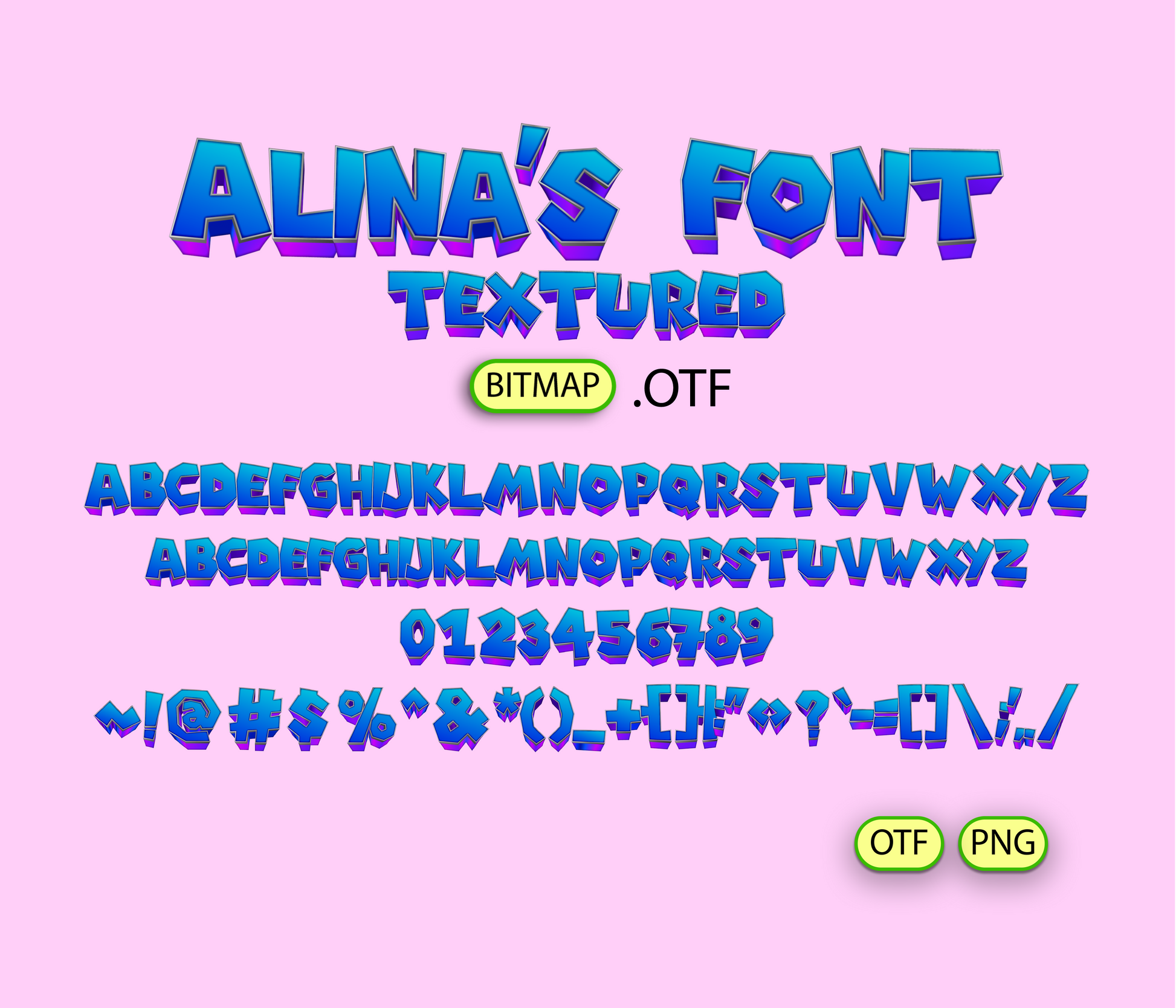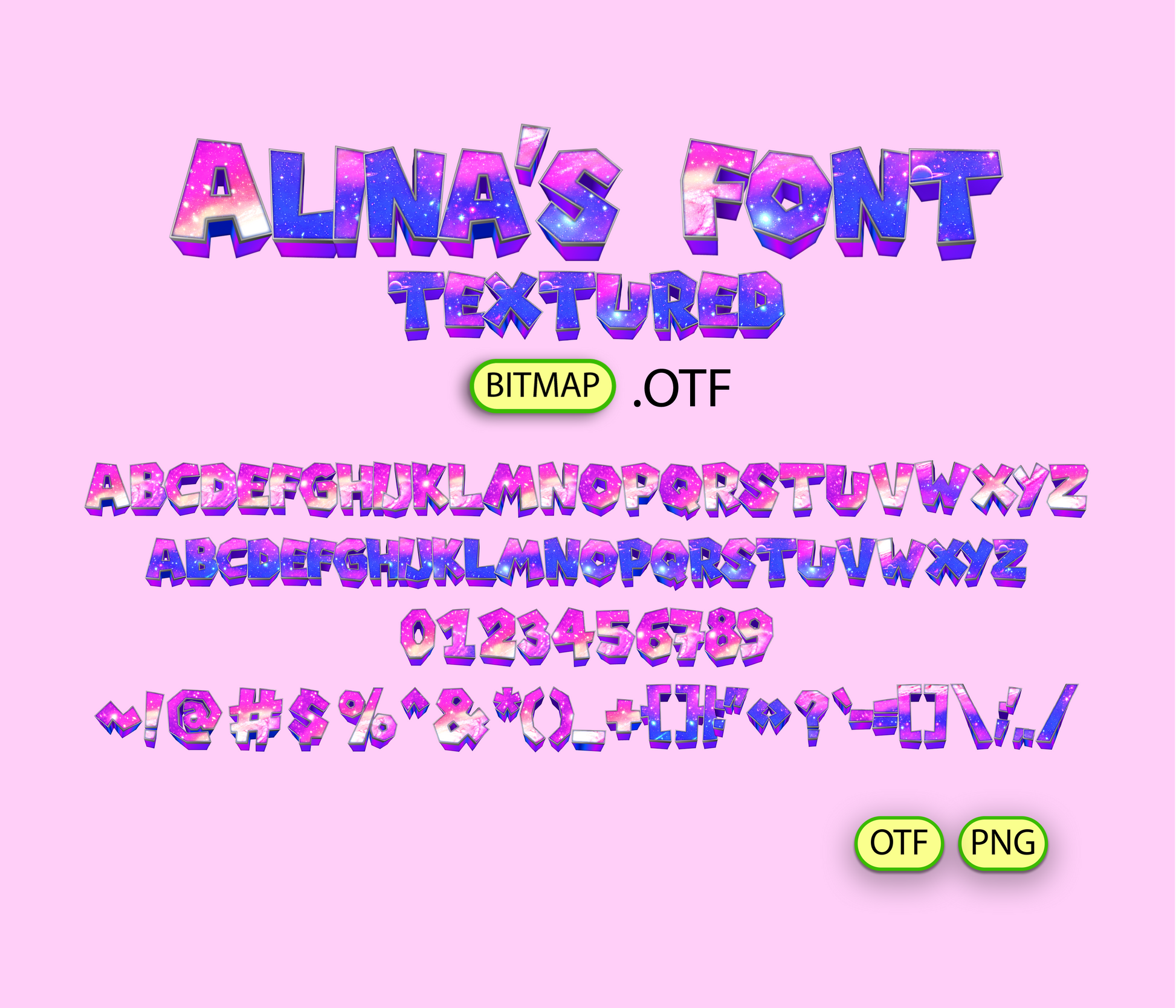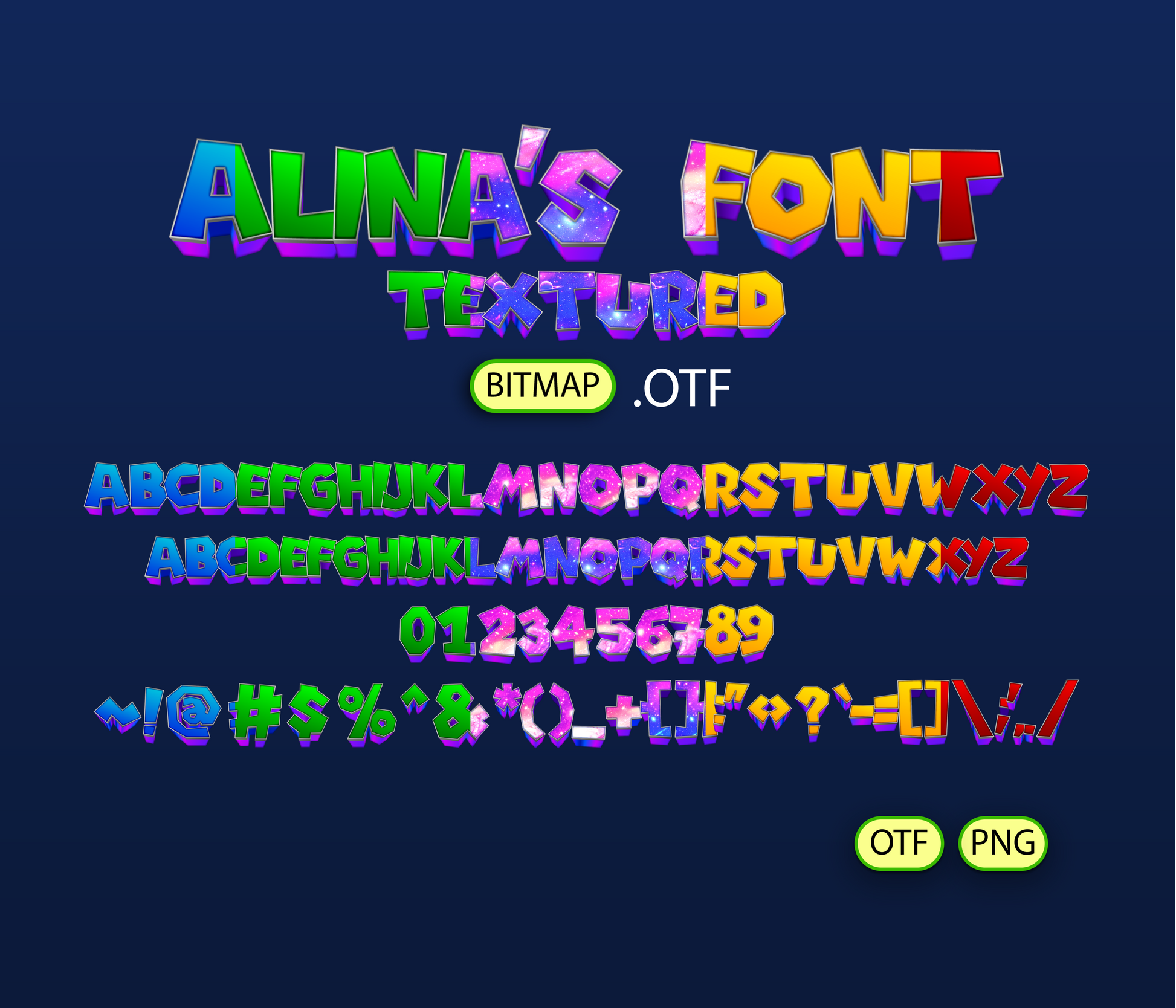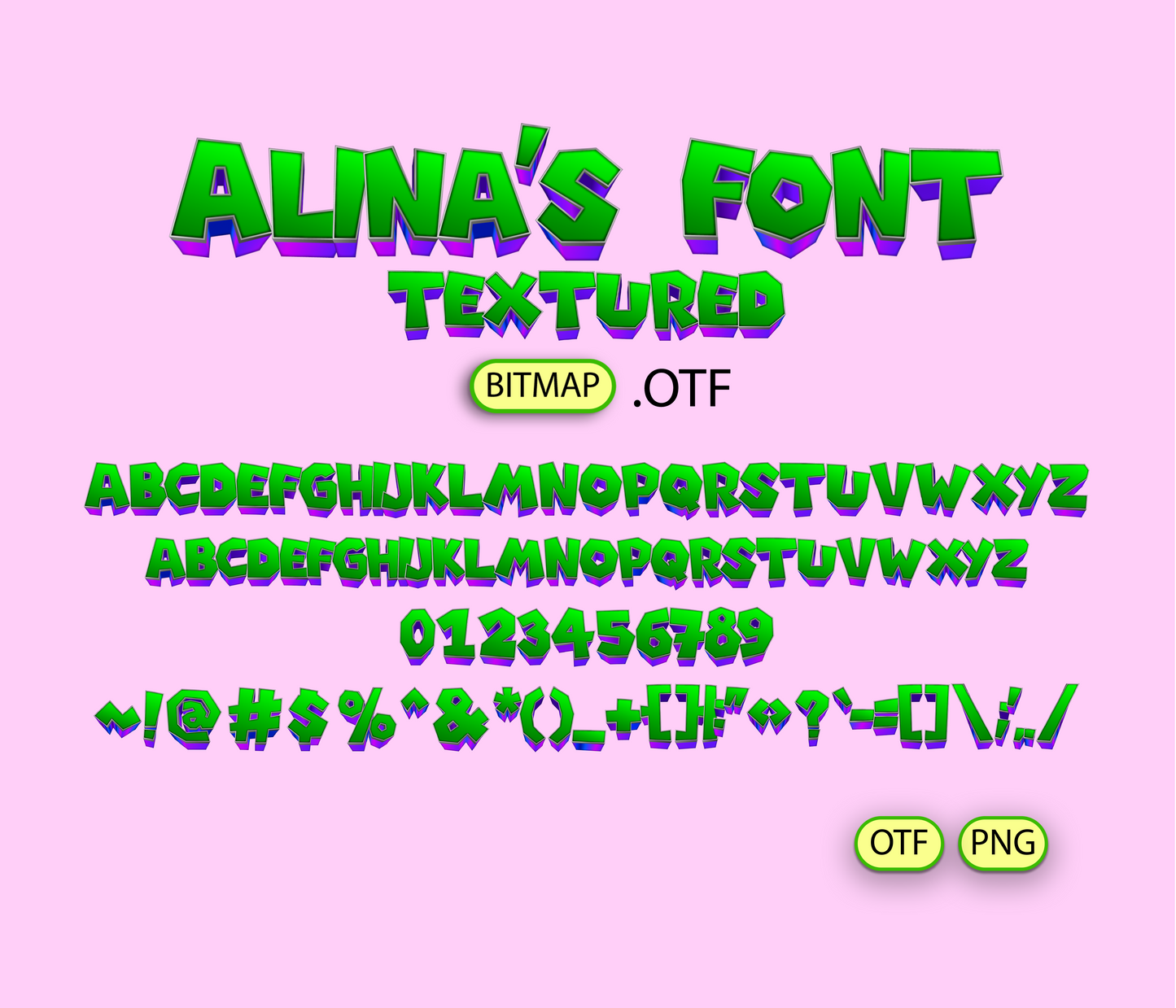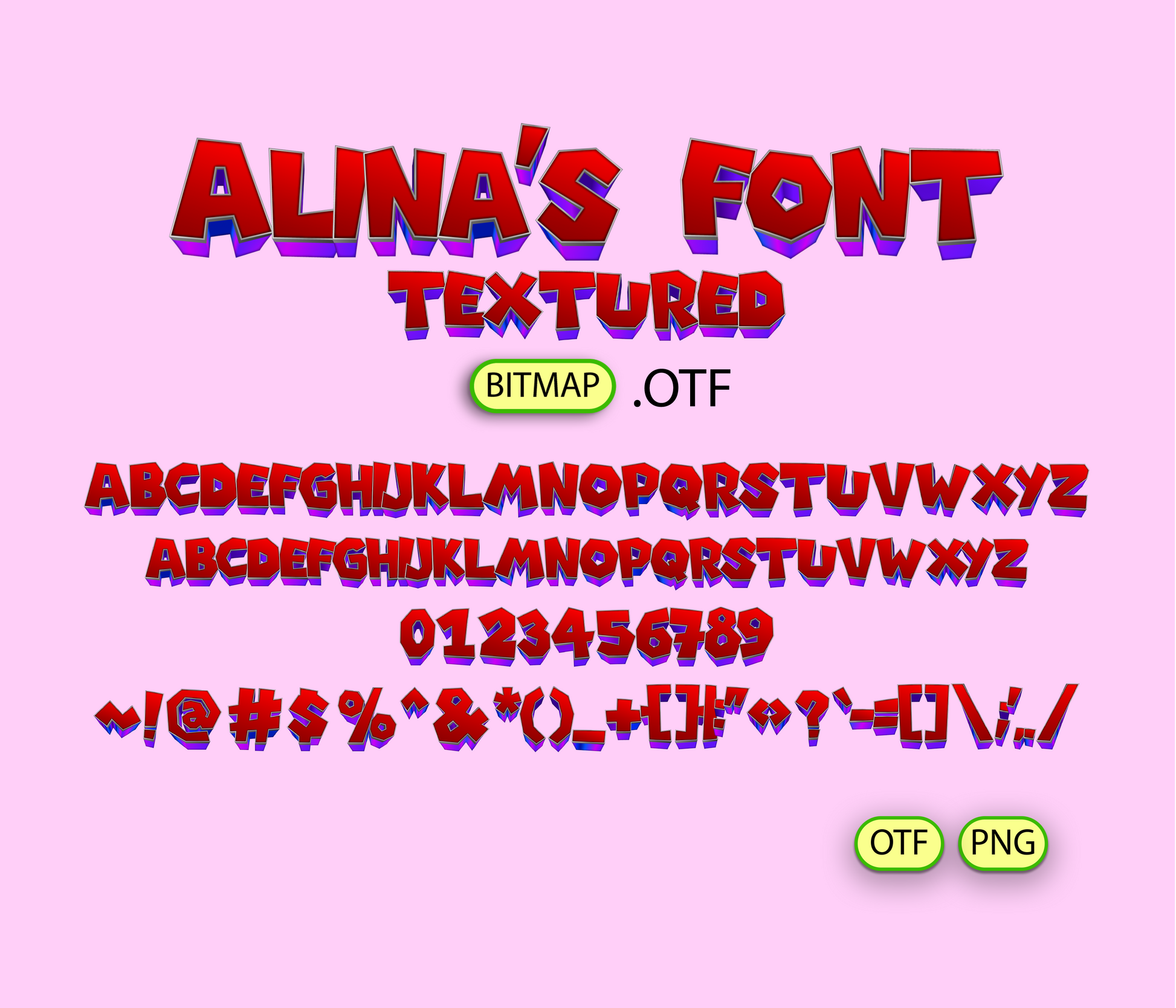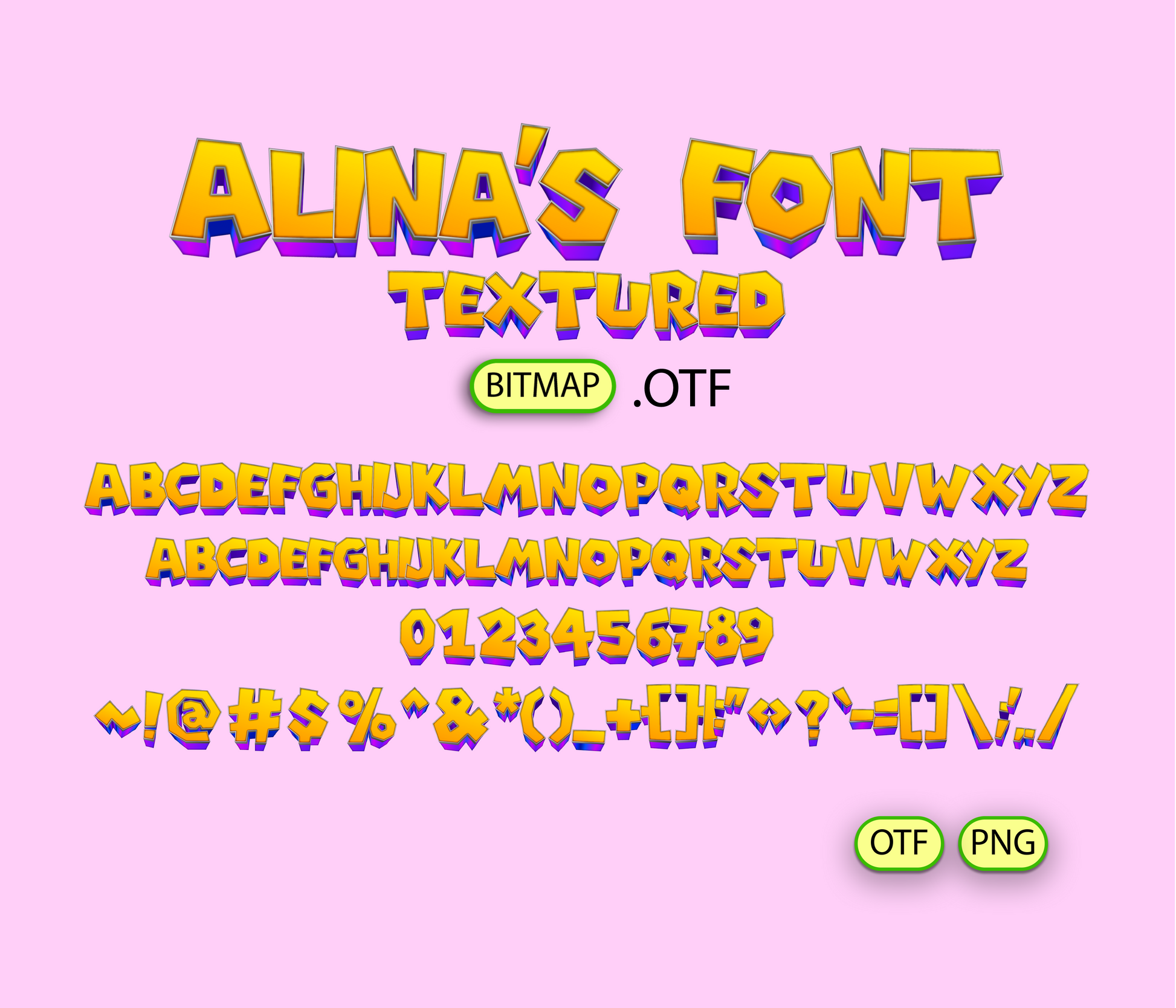
Cosmic Adventure Galaxy Font Textured Bundle
Step into the stellar world of interplanetary exploration with our Cosmic Adventure Galaxy Font Textured, capturing the essence of gravity-defying gameplay and celestial wonder. Perfect for space gaming enthusiasts, themed event planners, content creators, and creative professionals, this font brings the bold, whimsical spirit of spherical planet-hopping stories to your projects. Create eye-catching invitations, merchandise, or digital content with the dramatic energy of cosmic platforming narratives.
Bold Typography for Space Gaming Design & Adventure Projects
Our Cosmic Adventure Galaxy Font Textured features dramatic, stylized letterforms with stellar textures reflecting the world of planetary explorers and orbital mechanics settings.
- Event Promotions: Create eye-catching invitations, posters, and banners for gaming parties, space-themed conventions, and gatherings that capture the spirit of cosmic entertainment
- Merchandise Design: Perfect for t-shirts, posters, stickers, and accessories that showcase the bold aesthetic of interplanetary adventure themes
- Digital Media: Enhance websites, blogs, and social media with celestial headers and graphics that express the wonder of spherical world exploration
- Creative Content: Add authentic flair to fan art, character designs, and creative projects inspired by gravity-manipulating space tales
- Personal Projects: Bring stellar energy to scrapbooking, DIY crafts, and home decor inspired by the world of cosmic exploration characters
Our font pays tribute to the world of interplanetary adventure stories and space gaming culture, empowering your projects with its bold and whimsical spirit. Whether crafting fan materials, designing themed products, or adding a cosmic touch to personal projects, this font communicates the vibrant essence of celestial exploration entertainment. Ready to inject stellar wonder into your creations? This font is your key to eye-catching, impactful design.